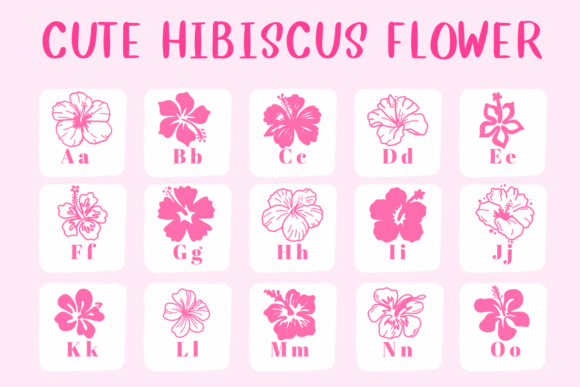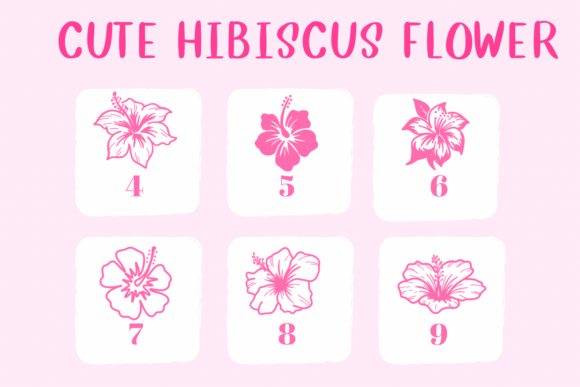
Cute Hibiscus Flower Font
Let your creativity bloom with Cute Hibiscus Flower, a dingbat font filled with charming hibiscus shapes in various styles. Ideal for adding a floral flair to your designs, this font is perfect for summer invitations, greeting cards, and tropical branding.